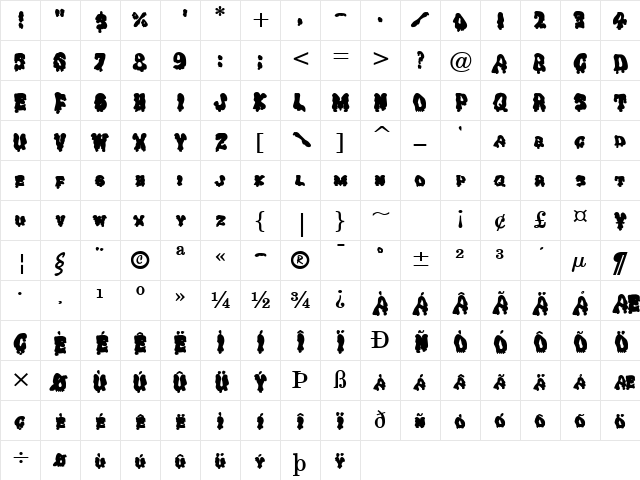
Complete Gremlin Solid Bold glyph index. Displaying only characters natively supported by Gremlin Solid Bold font.
Gremlin Solid is a composed and adaptable typeface that performs quietly and consistently across a wide range of design contexts. Its bold stroke weight gives it real presence on the page.